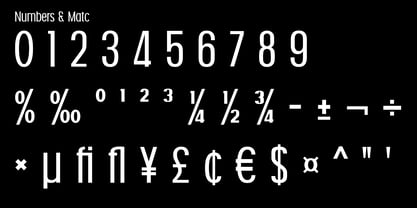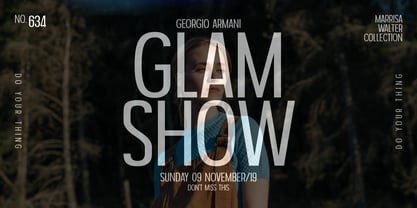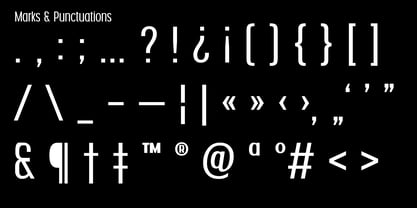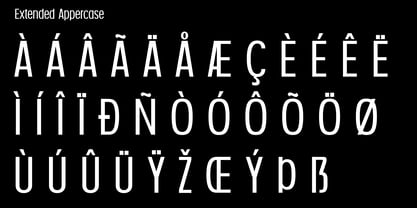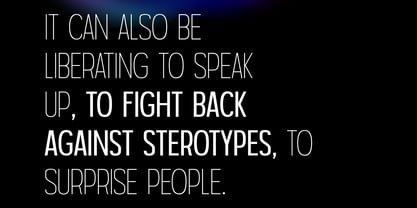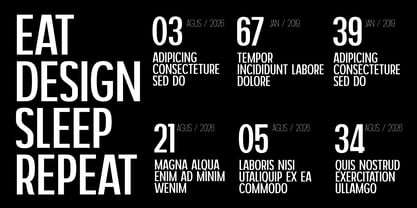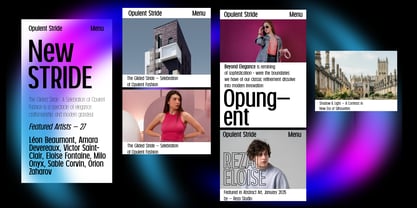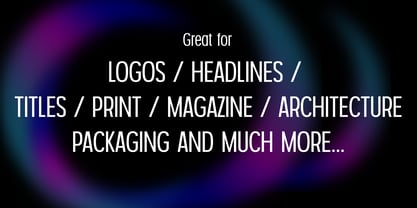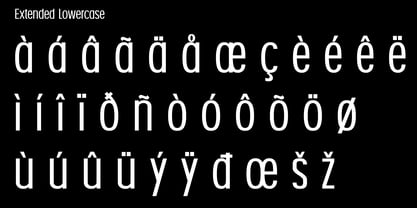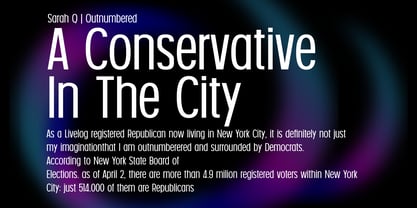
Nexora
by Rezastudio
The Nexora Font Family was designed by Reza Mukhtazar and published by Rezastudio. Nexora contains 18 styles and family package options.
NEXORA is a bold and futuristic sans serif typeface crafted for modern visual needs. Featuring 18 versatile styles, this variable font is perfect for branding, editorial layouts, digital interfaces, posters, and motion graphics. With its sharp, clean lines and powerful presence, NEXORA brings a sleek and professional edge to any design.
Designed and published by Reza Mukhtazar – 2025, NEXORA blends minimalism and impact in one dynamic type family.
Designers: Reza Mukhtazar
Publisher: Rezastudio
Foundry: Rezastudio